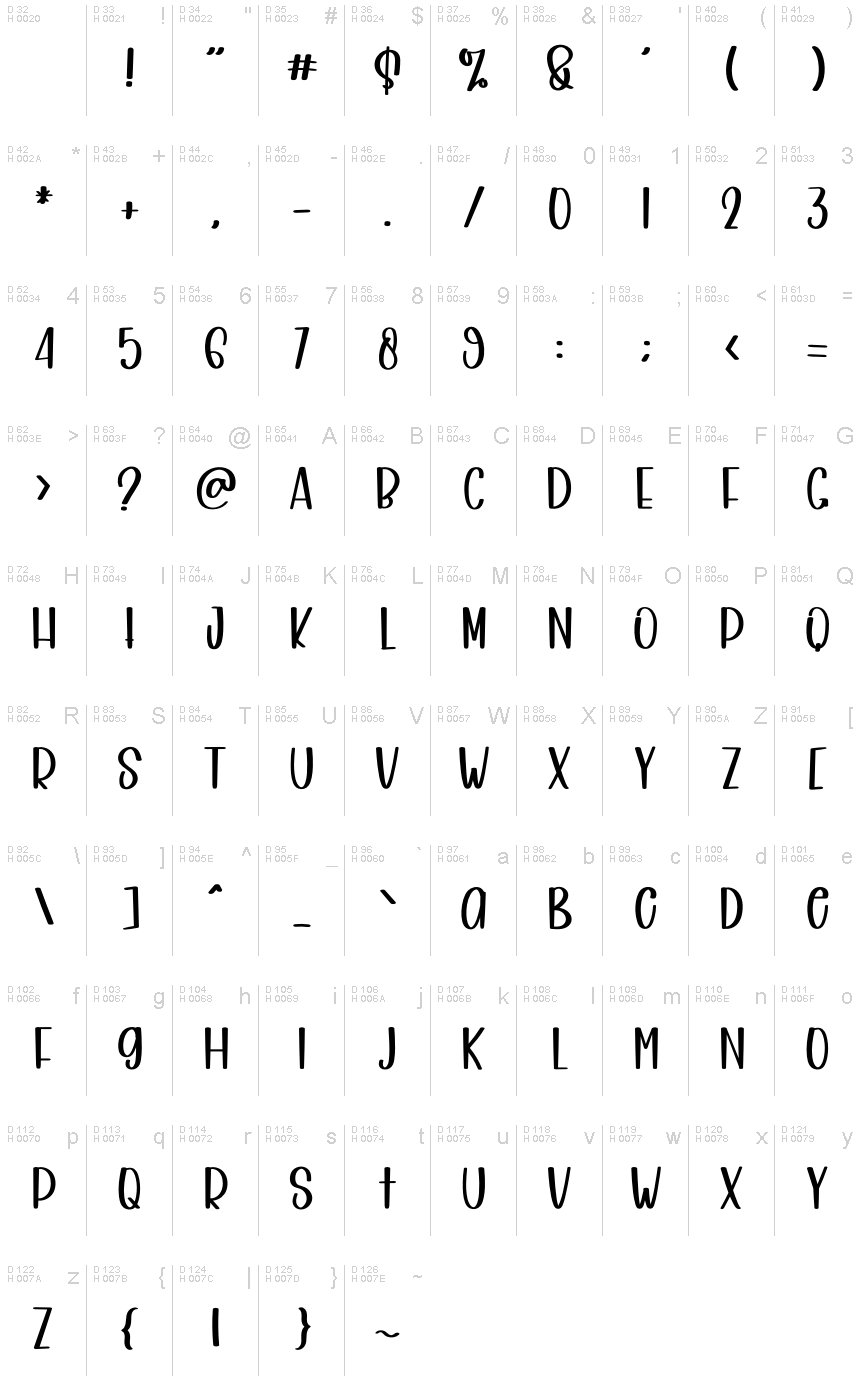
Home Page font, designed by PiPi Creative, embodies a playful handwritten style that exudes warmth and personality. Its condensed nature lends an air of elegance while retaining a casual charm, making it ideal for modern branding and creative projects. The unique character shapes draw the eye with their inviting curves and dynamic flow, creating an engaging visual experience.
This font is particularly well-suited for applications such as social media graphics, website headers, and merchandise designs where a personal touch is desired. Its aesthetic appeal lies in its ability to convey both approachability and sophistication, allowing it to adapt effortlessly across various contexts while maintaining its distinct flair.